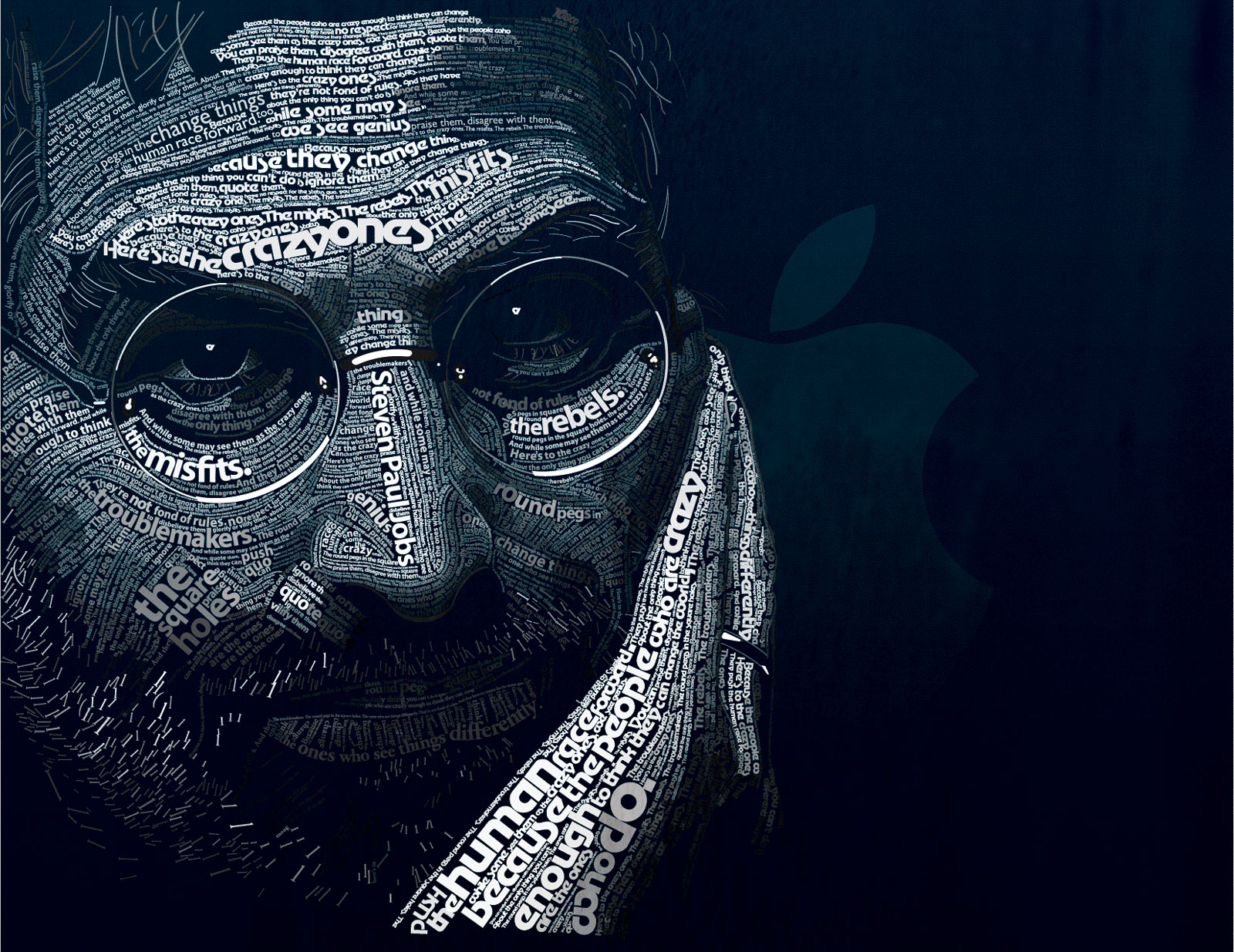
Incredible Steve Jobs Portrait in Apple Typefaces
Designer Dylan Roscover has created a fabulous portrait of Steve Jobs using the words of Apple’s seminal “Think Different” campaign.
At first, Dylan’s portrait looks like a pointillist painting. But on closer inspection, you see that Jobs is rendered in the words of “the crazy ones” TV ad, using a variety of Apple-related fonts — Motter Tektura, Apple Garamond, Myriad, Univers, Gill Sans, and Volkswagen AG Rounded, to be exact.
Says Dylan: “This is a typeface-driven design based on the “Here’s to the crazy ones” ad campaign from Apple in the 90s, using… fonts present in Apple branding and products.”